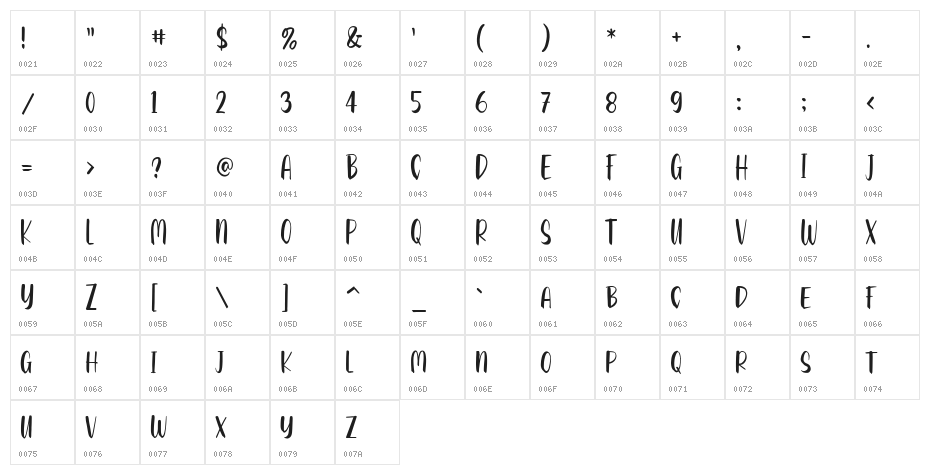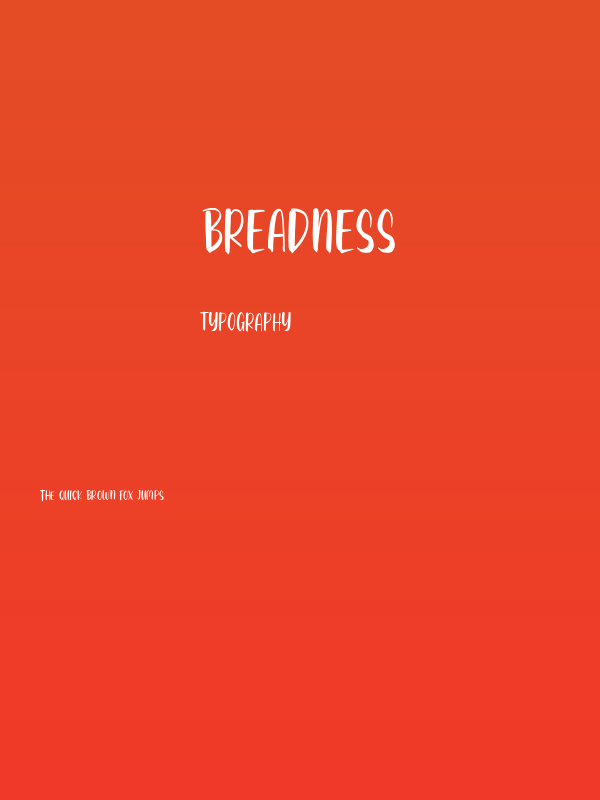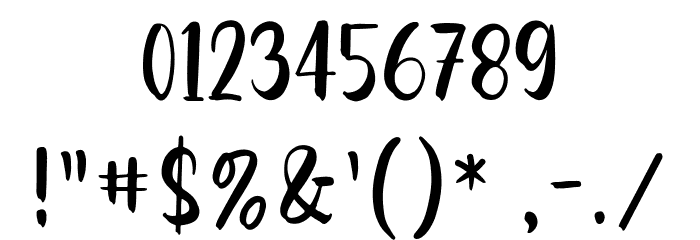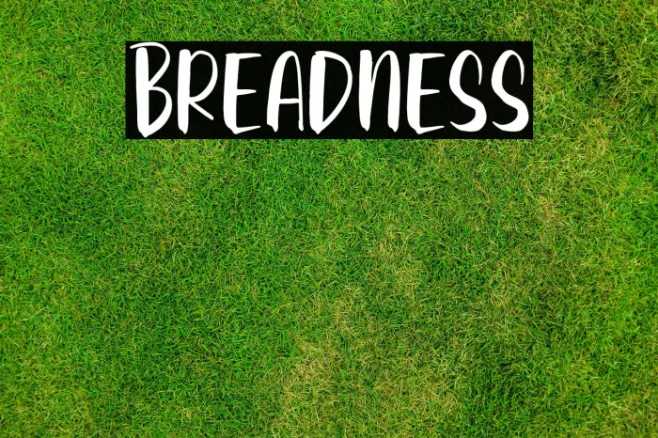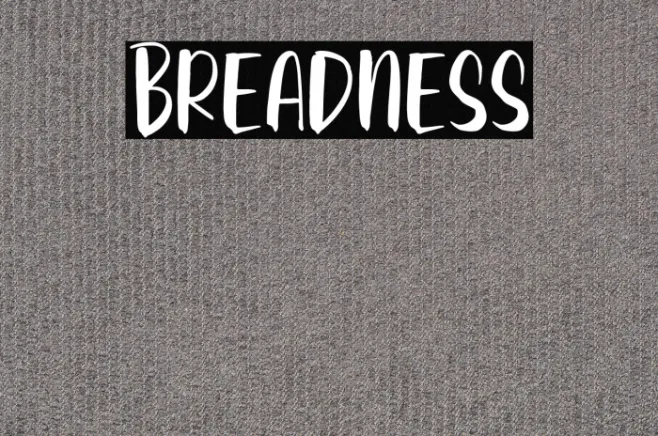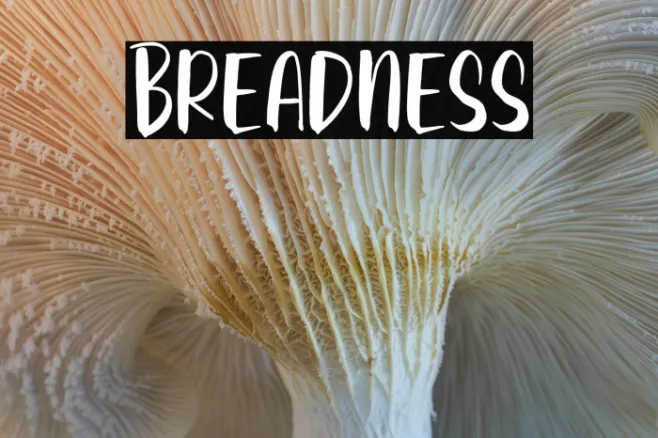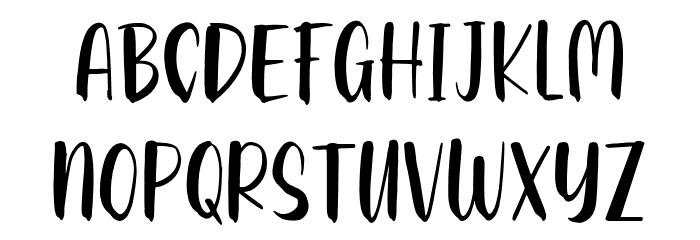
Breadness Font
Breadness Description
This font features a playful and energetic handwritten style, characterized by its bold and flowing strokes. The letters are slightly slanted, giving a dynamic and informal appearance. The uppercase and lowercase letters maintain a consistent style, with rounded edges and a smooth flow that enhances readability. The numbers and special characters follow the same design principles, ensuring a cohesive look across all characters. This font is ideal for projects that require a personal touch, such as invitations, greeting cards, or branding materials that aim to convey warmth and approachability.
| Overall Style | Playful, Energetic |
| Proposed Projects | Ideal for invitations, greeting cards, branding materials, and any project needing a personal touch. |